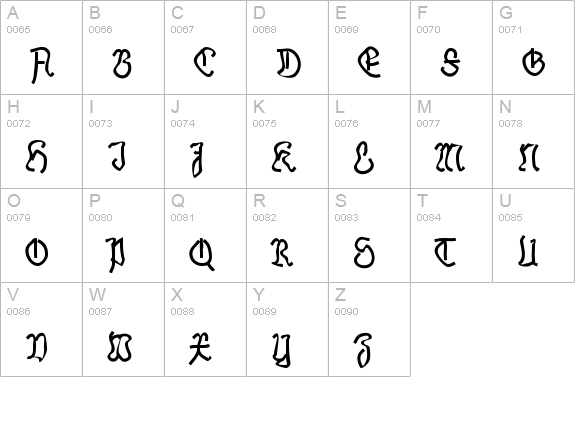
Horror Font Details
Introducing Horror font, a spine-chilling typeface that will send shivers down your spine. This terrifying font is perfect for creating a spooky atmosphere in your designs, from haunted house flyers to Halloween party invitations. With its jagged edges and sinister appeal, Horror font is sure to give your projects an eerie and unsettling vibe. The best part? Horror font is completely free to download at FontsMarket.com. So why wait? Add a touch of horror to your designs today with this bone-chilling font that is guaranteed to leave a lasting impression. Download Horror font now and unleash the darkness in your creations.